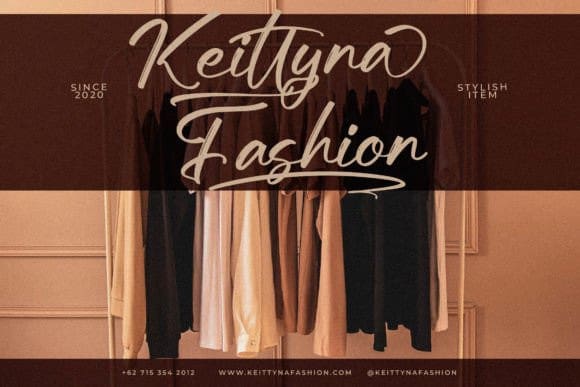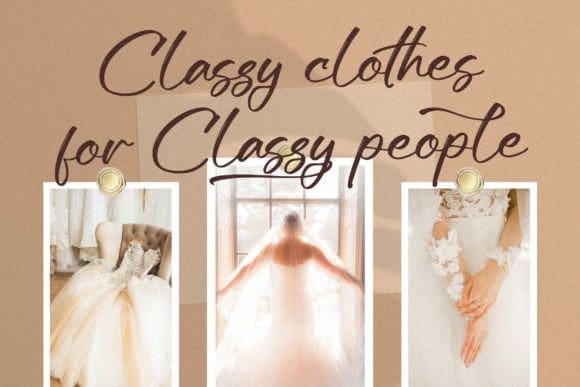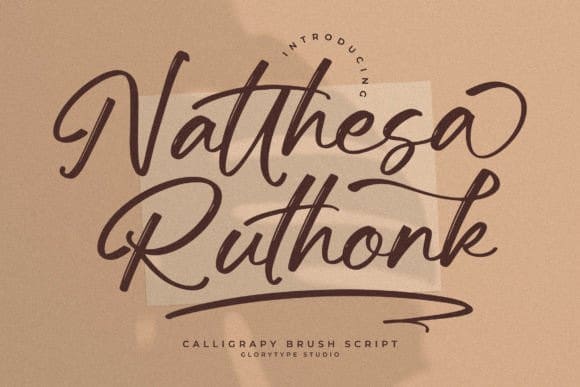
Natthesa Ruthonk Font
Natthesa Ruthonk Font – Calligraphy Brush Script. This lovely handwritten typeface is perfect for logos, branding projects, homeware designs, product packaging, mugs, quotes, posters, shopping bags, t-shirts, book covers, name cards, invitation cards, greeting cards, labels, photography, watermark, special events, and more.